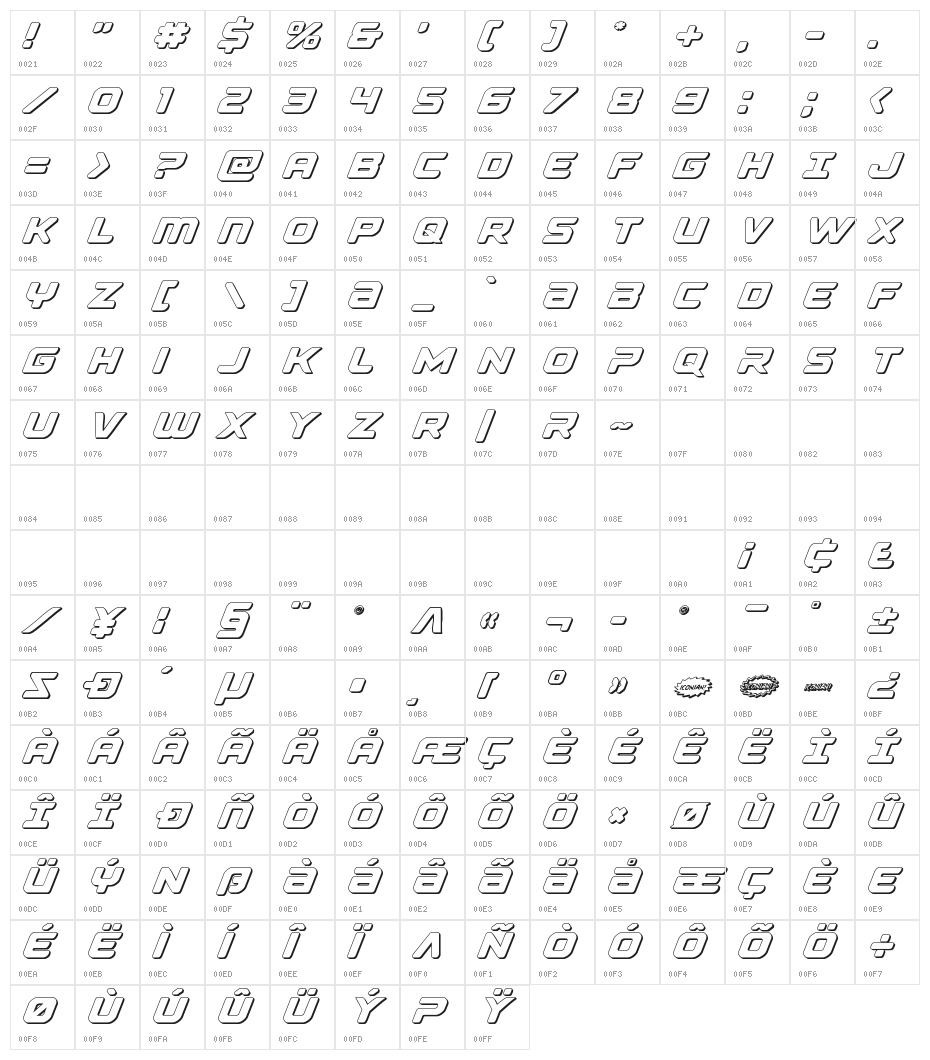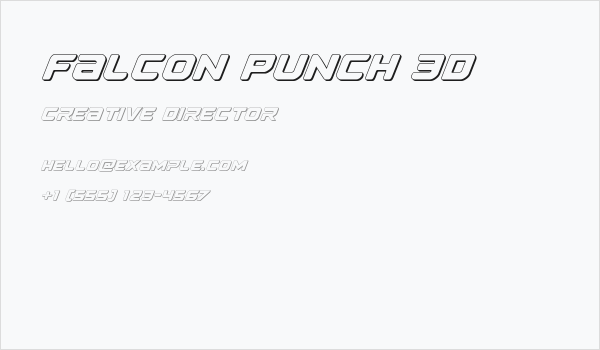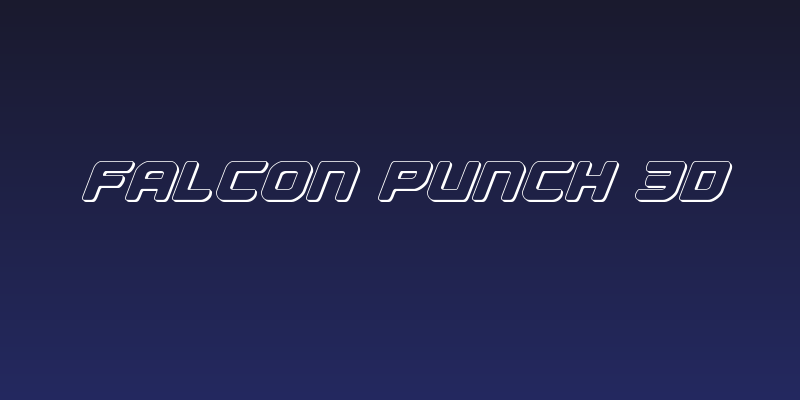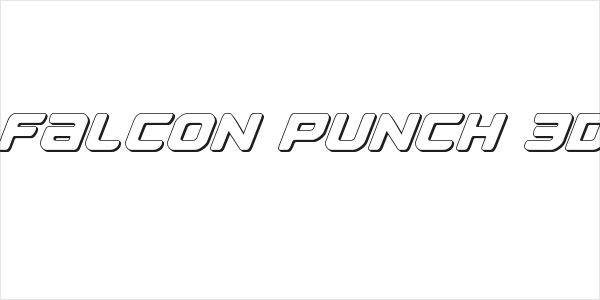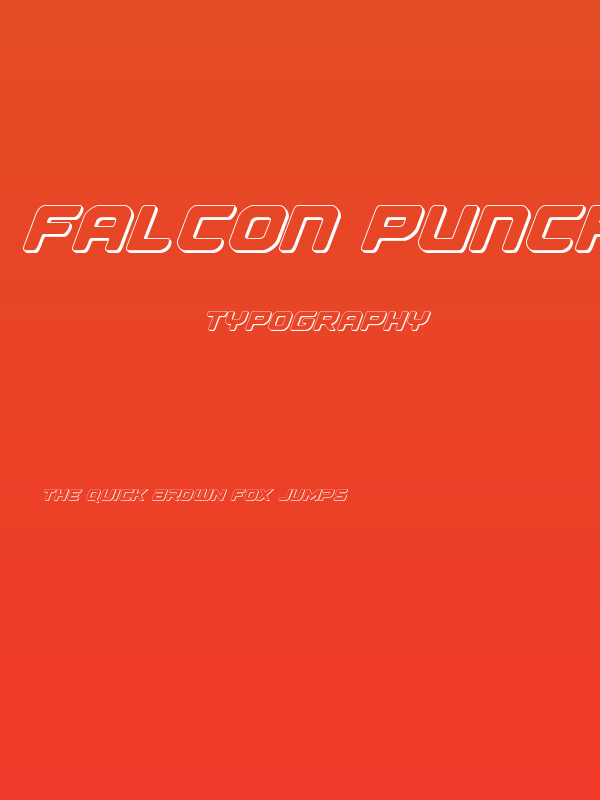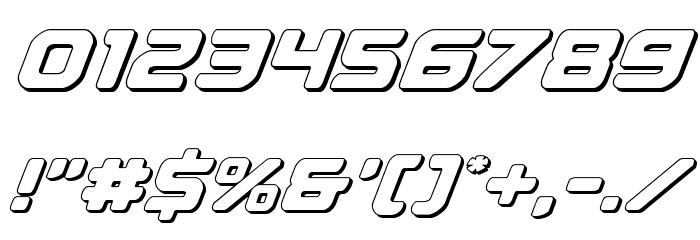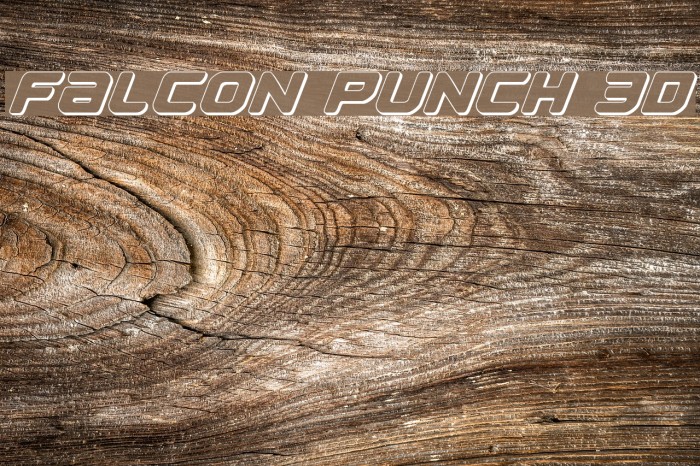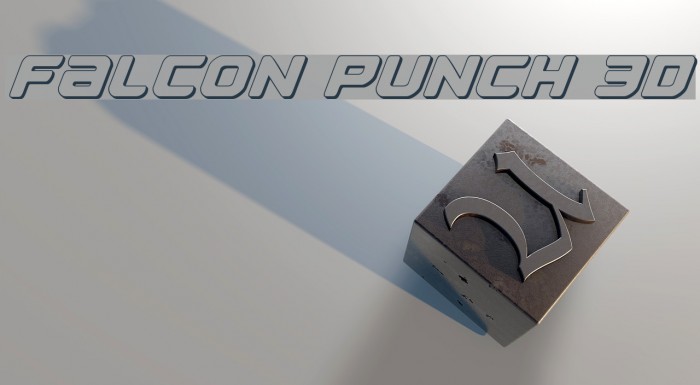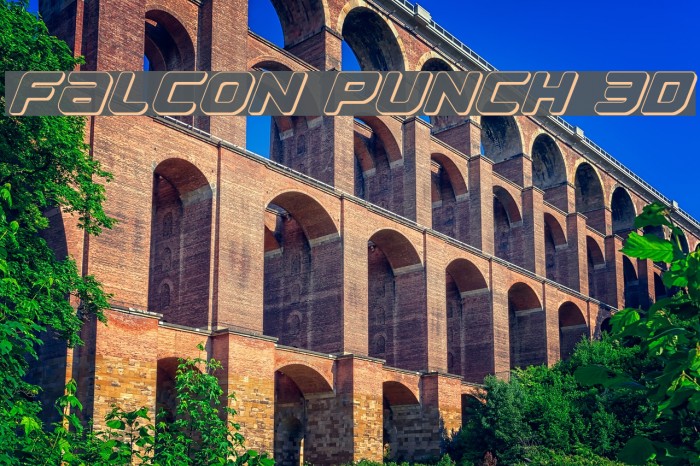
Falcon Punch 3D Font
Falcon Punch 3D Description
This font features a bold, three-dimensional design with a futuristic and dynamic appearance. Each character is outlined, creating a sense of depth and movement. The letters are slightly slanted, adding to the energetic feel, and the strokes are consistent in width, providing a uniform look. The font is highly legible, making it suitable for attention-grabbing headlines or titles. Its geometric shapes and clean lines give it a modern and sleek style, perfect for projects that require a strong visual impact.
| Proposed Projects | Ideal for video game titles, sci-fi movie posters, tech-related branding, or any project needing a modern, impactful look. |